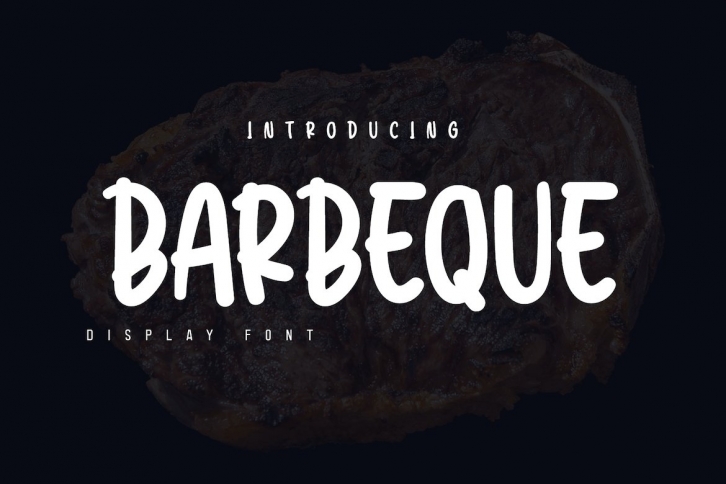
Barbeque is a trendy and unique font with an authentic style. It was designed by twinlettertype and it's a great choice for creative people who need such a font. It was released on March 13, 2021 and the file size is 4.8 MB. Barbeque will add an organic vibe to any design idea!